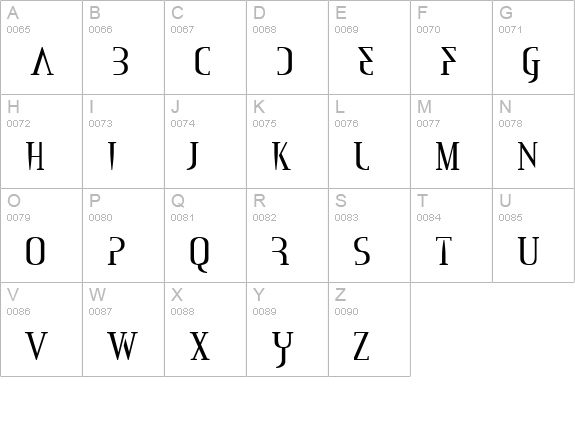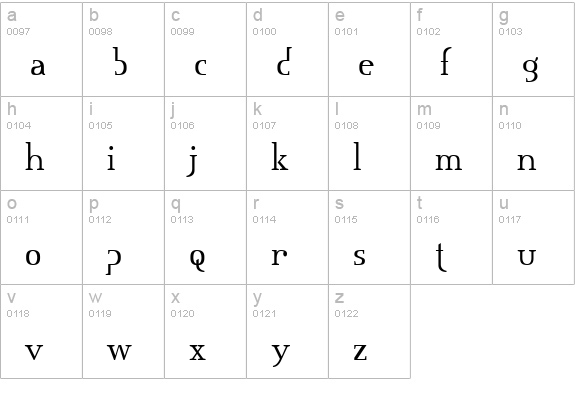
Mississauga Font Details
Mississauga font is a modern and stylish typeface that exudes sophistication and elegance. With its sleek lines and contemporary appeal, Mississauga is perfect for a wide range of design projects, from branding to editorial design. The font features a unique blend of classic and modern elements, making it versatile and eye-catching. What sets Mississauga font apart is that it is available for free download at FontsMarket.com. This means that designers and creatives can easily access this stunning typeface without any cost, making it a valuable addition to any font library. Whether you're working on a logo, website, or print design, Mississauga font is sure to elevate your project and leave a lasting impression. Download Mississauga font today and take your designs to the next level!